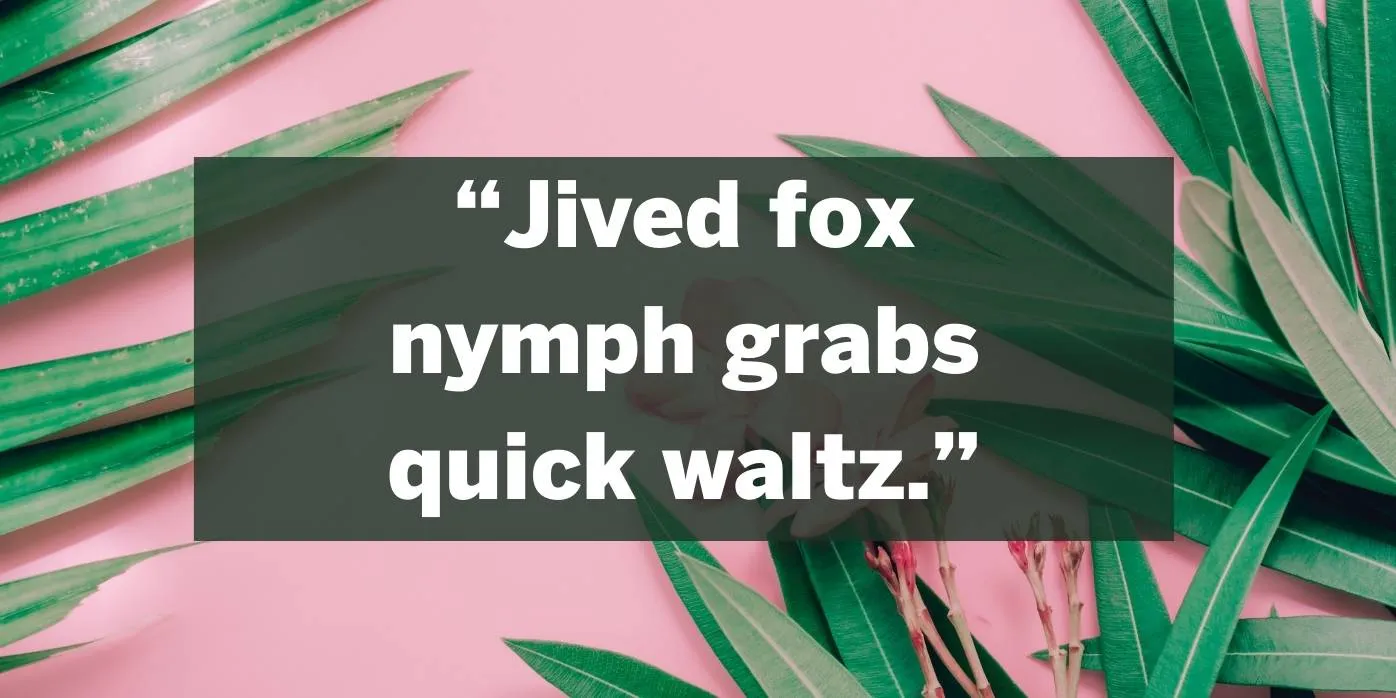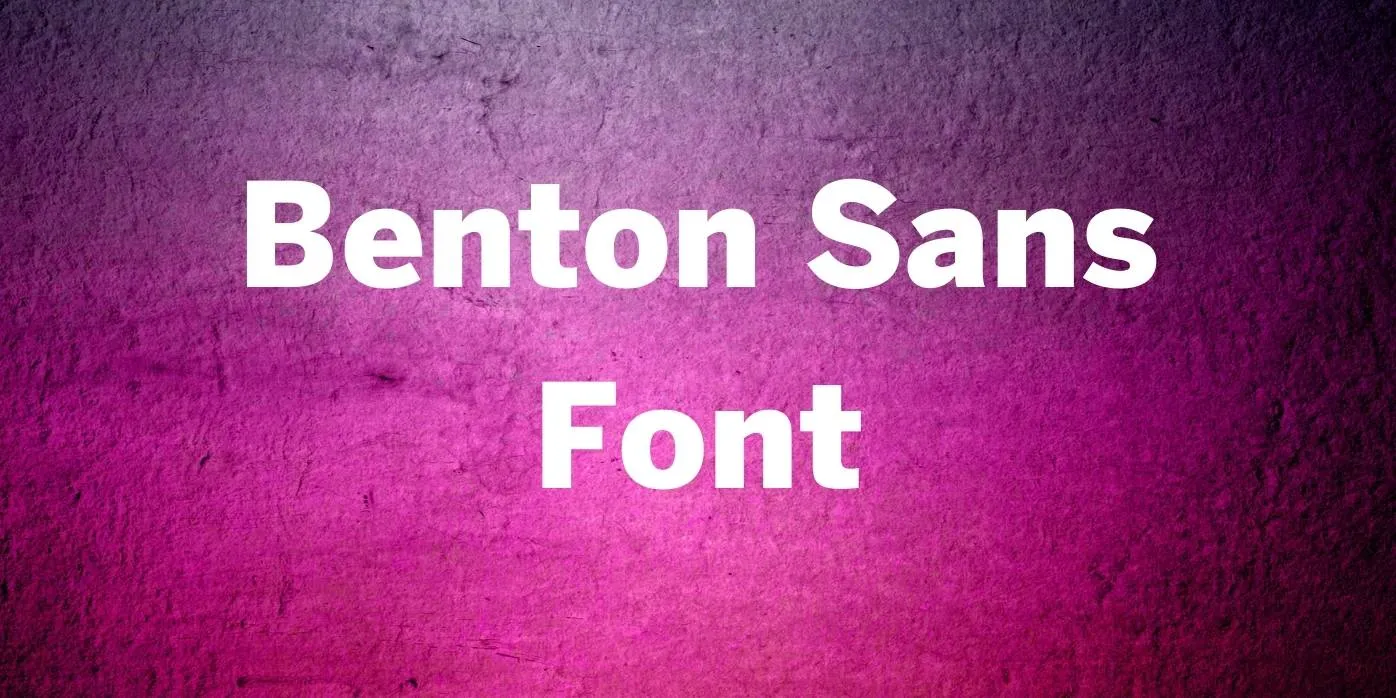
Benton Sans Font
Benton Sans Font was developed and published by Cyrus Highsmith by Font Bureau in 2009. This typeface belongs to the Sans-Serif typeface. It is a clean typeface and has an upright italic style. This awesome Font family has a total of 9 weights.
This typeface is a Google Font. It is best for Adobe. This font is best for body text and headlines. This typeface comes in unique styles and is perfect for modern designs.
This cozy Font has a very clean and polished look, making it perfect for body text alike. This typeface is perfect for modern designs and its unique styles make it stand out from the rest. Gill Sans Font is alternative to this classy typeface. This typeface is very famous because of its different styles and that is the reason is perfect for modern designs.